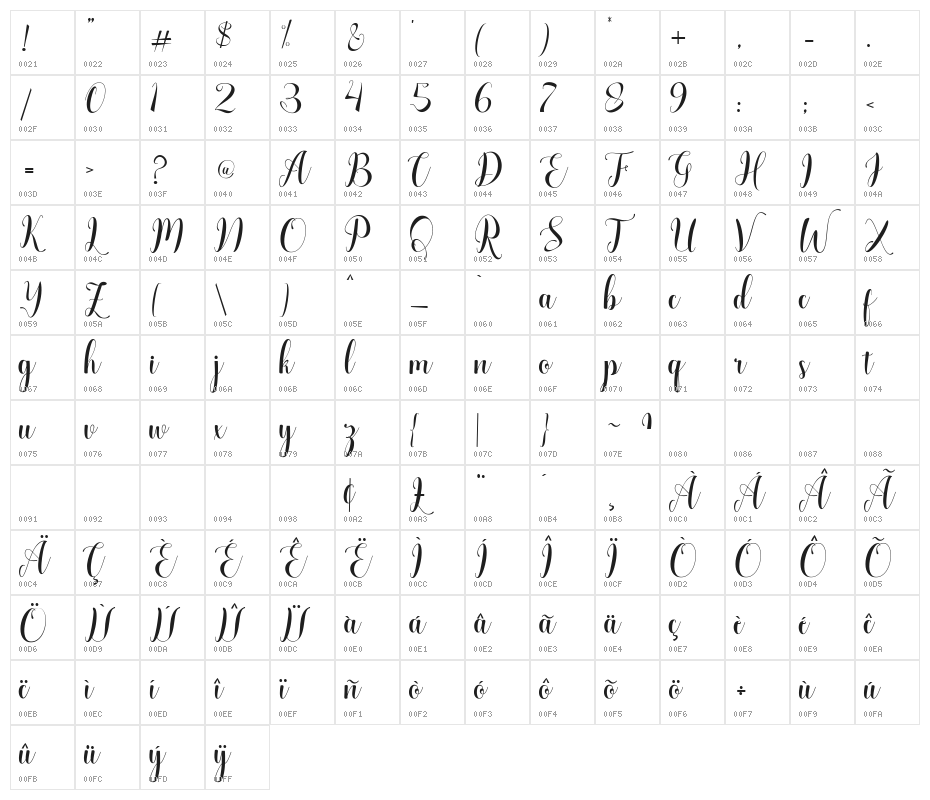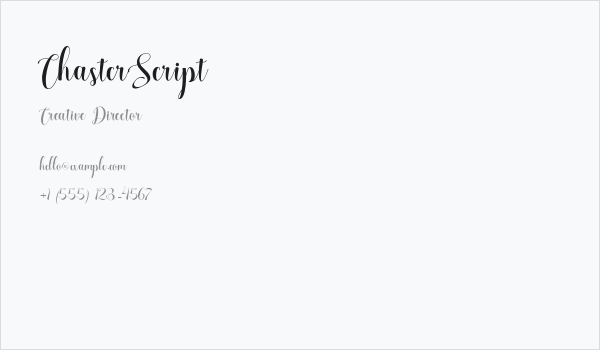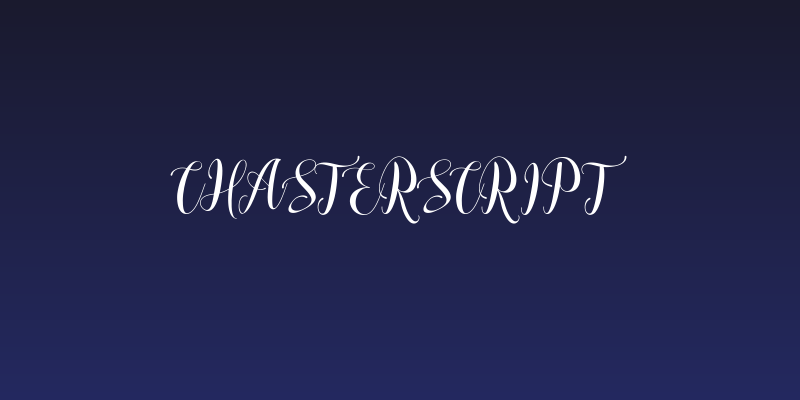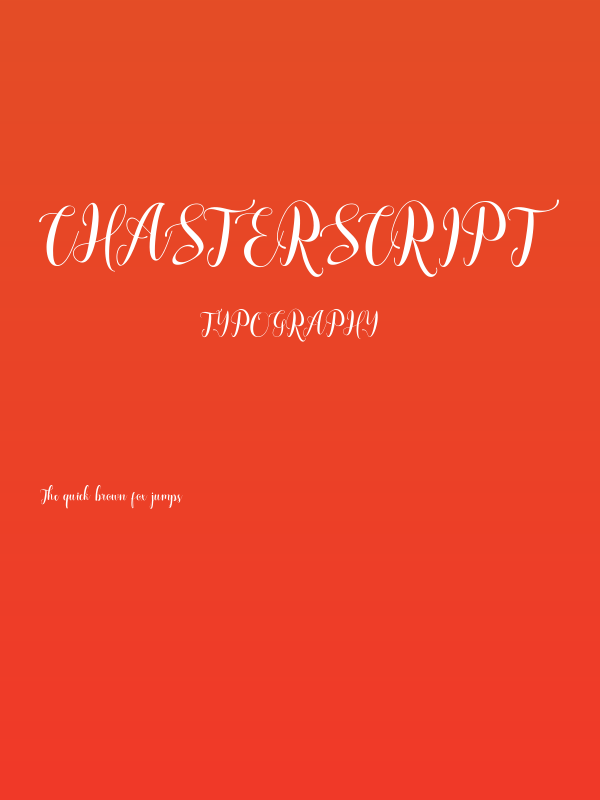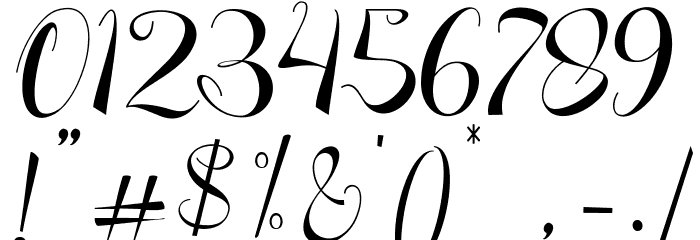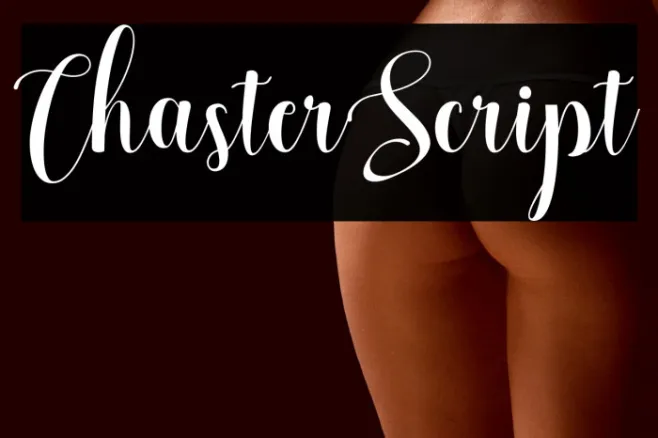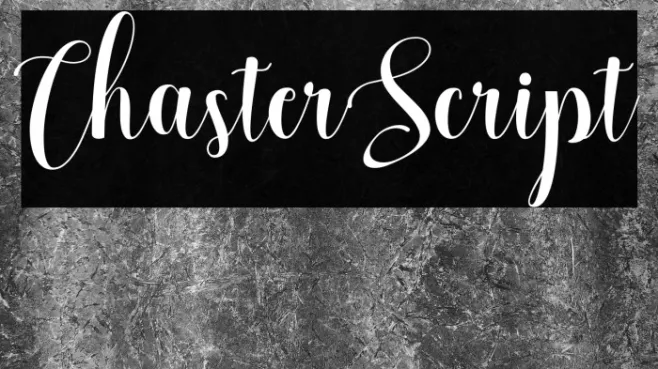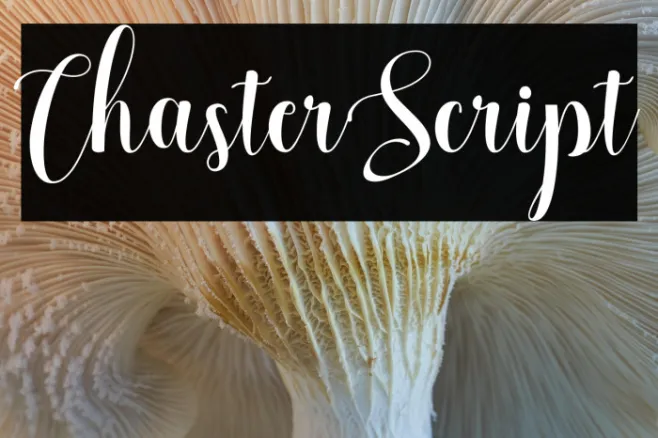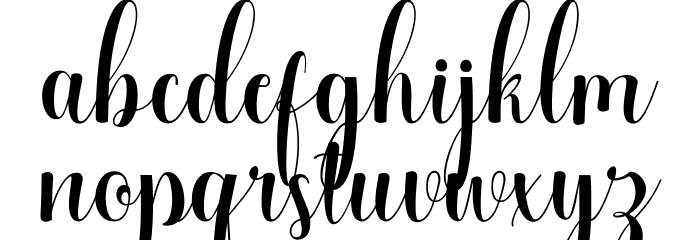
ChasterScript Font
ChasterScript Description
This elegant script font features flowing, interconnected characters that exude a sense of sophistication and grace. The uppercase letters are ornate, with sweeping curves and flourishes that add a decorative touch, while the lowercase letters maintain a more restrained yet still stylish appearance. The numerals are designed with a similar flair, incorporating gentle curves and a slight slant that complements the overall script style. Special characters are thoughtfully crafted to match the aesthetic, ensuring a cohesive look across all text. The font's high contrast between thick and thin strokes enhances its readability and visual appeal, making it suitable for a variety of design applications.
| Overall Style | Elegant, Decorative |
| Use Case | Logos, Invitations, Branding |
| Proposed Projects | Ideal for wedding invitations, elegant branding, greeting cards, and luxury product packaging. |